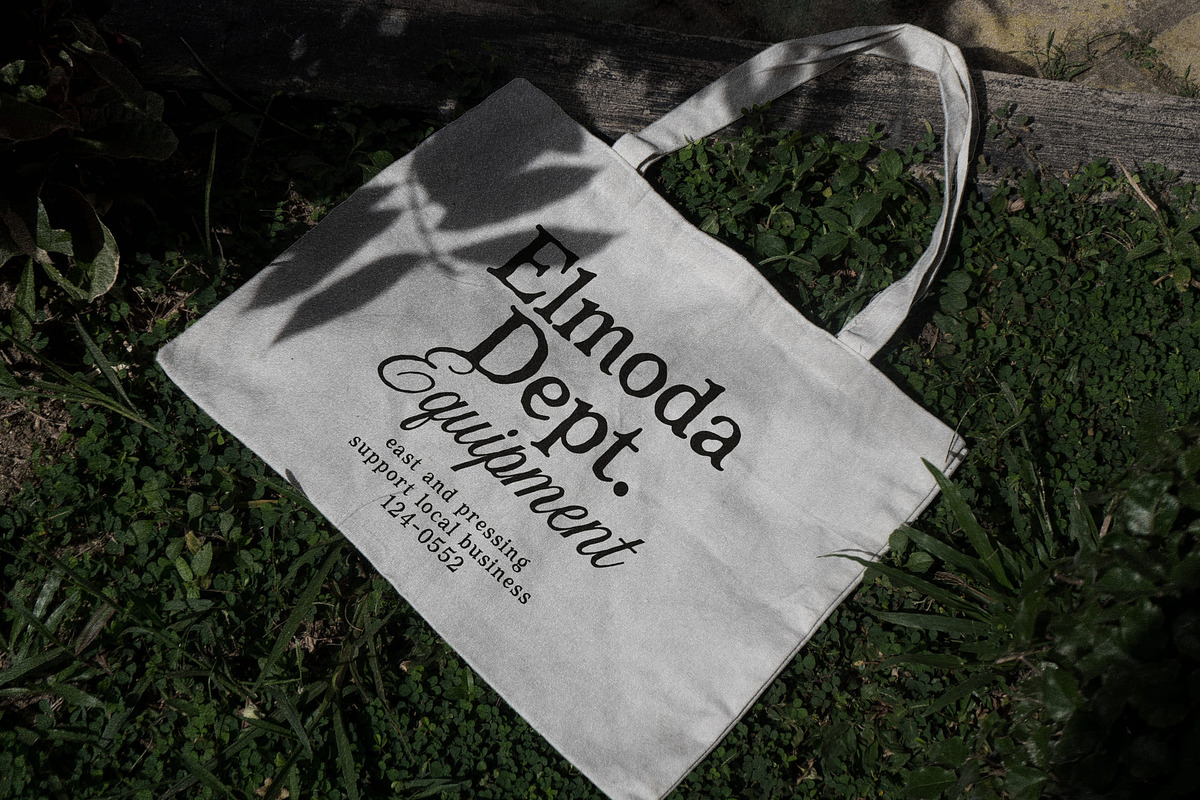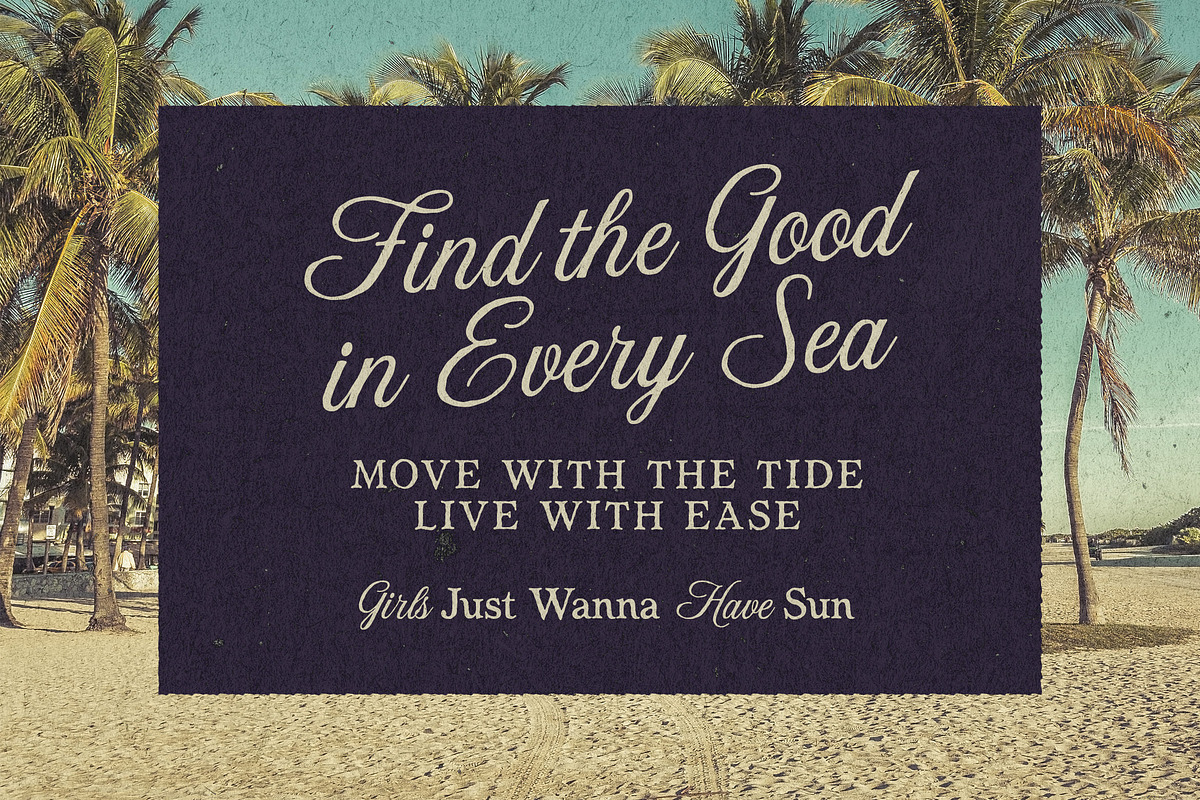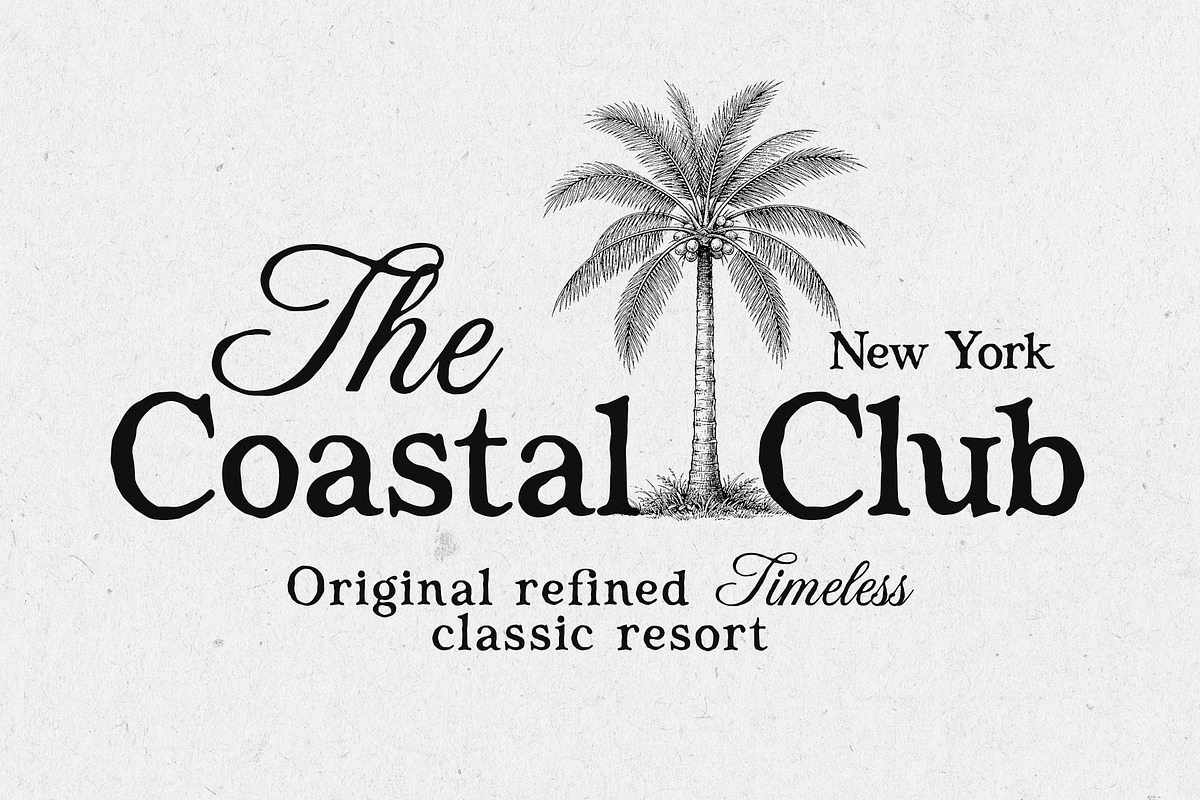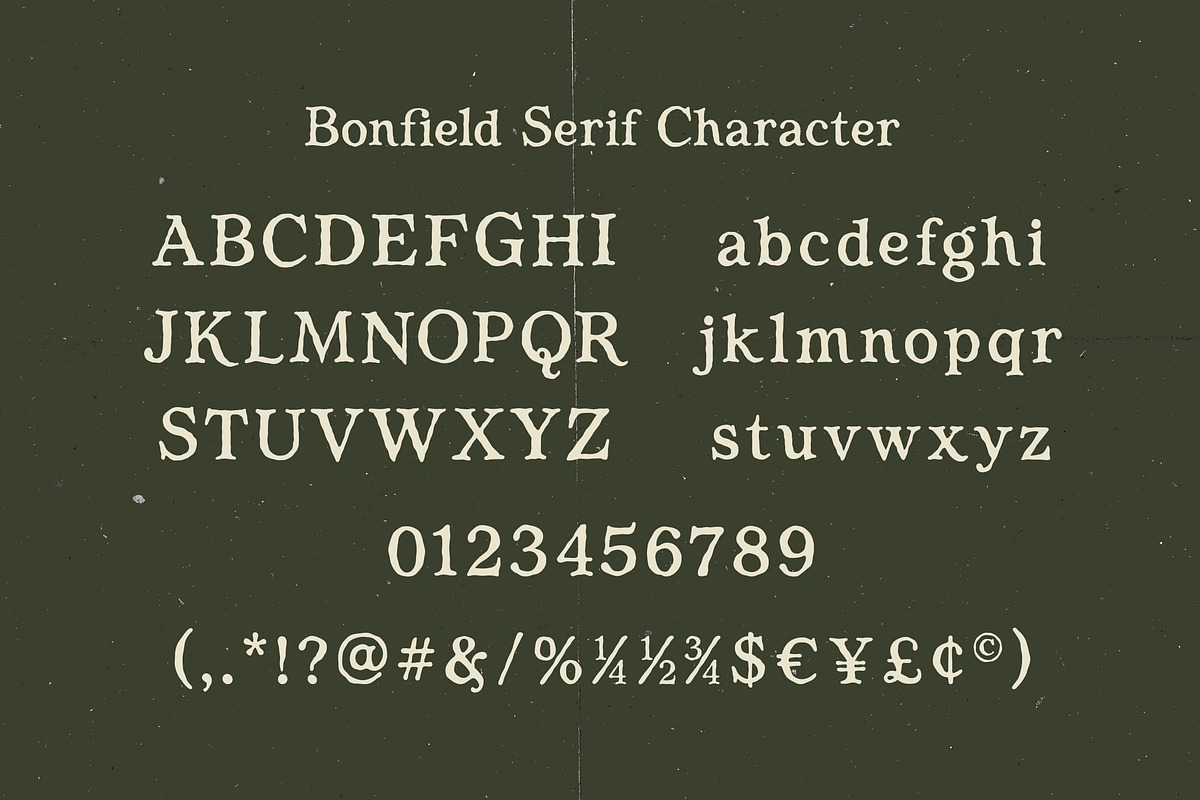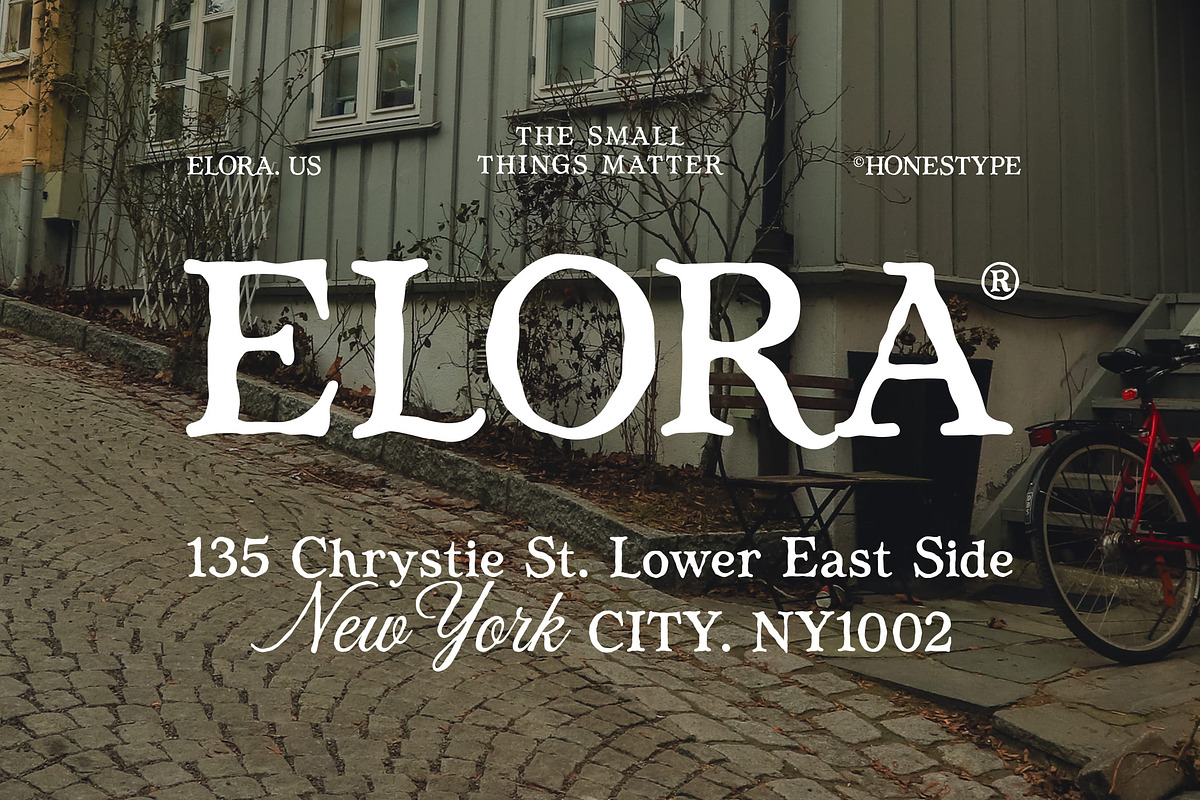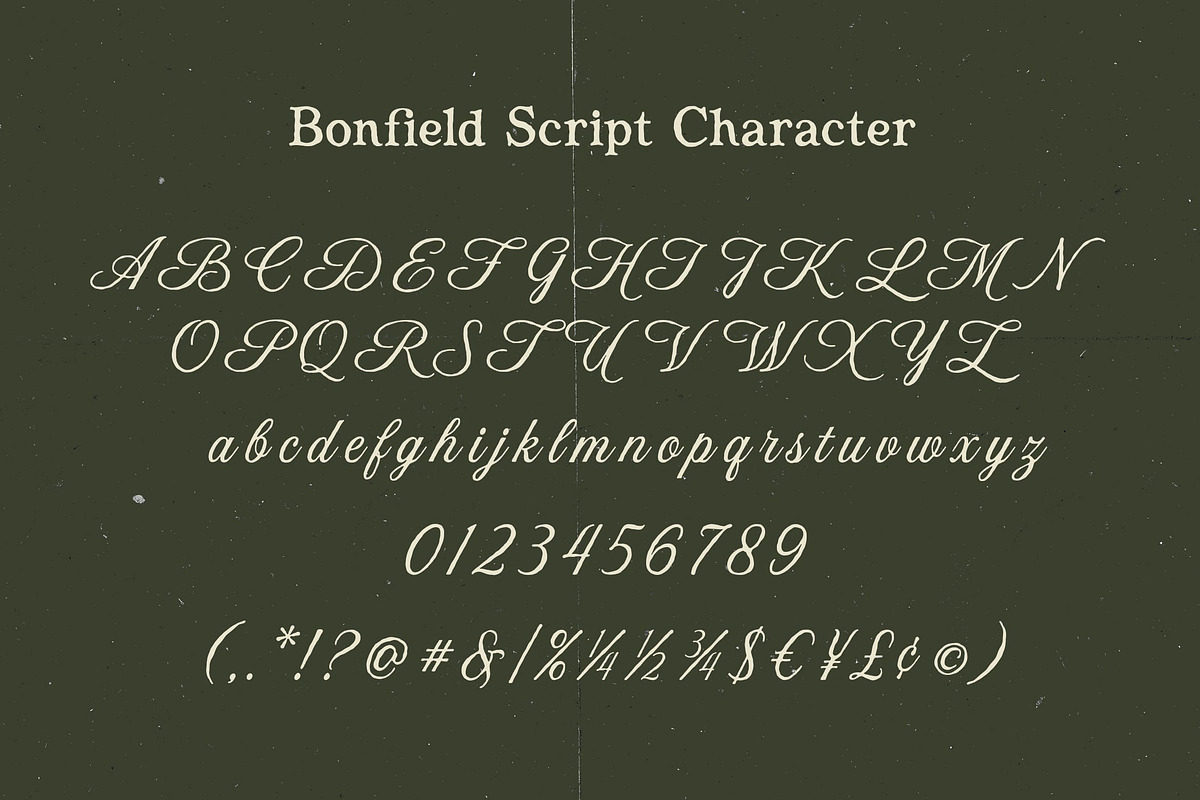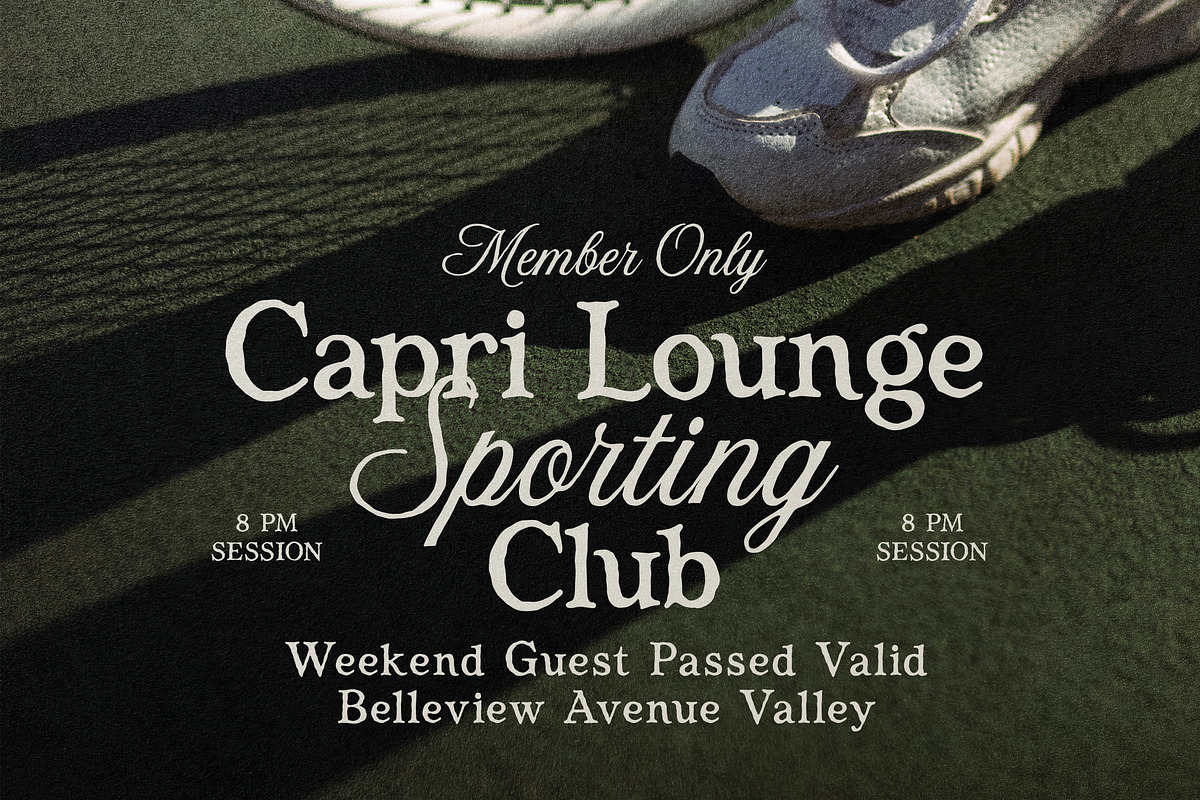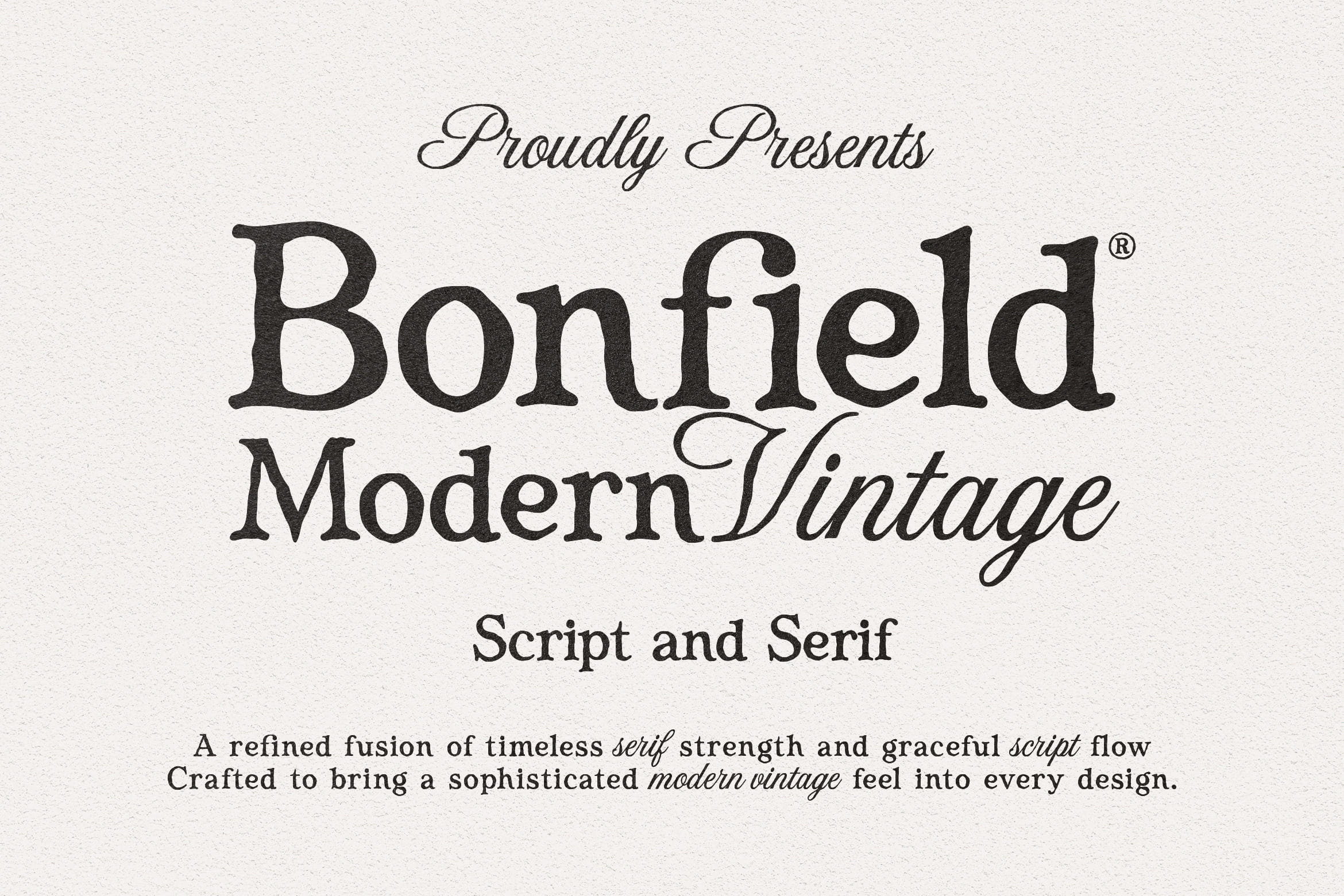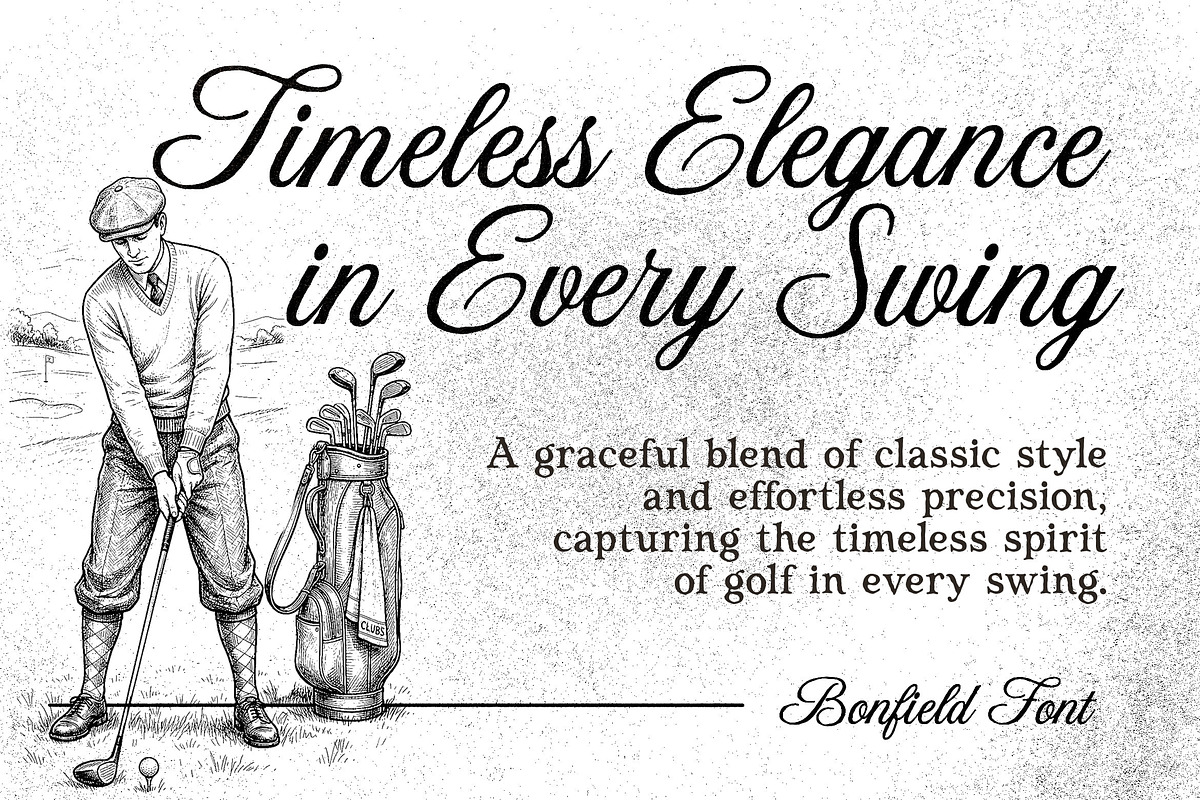
Bonfield – Modern Vintage Duo Font
Bonfield – Modern Vintage Script & Serif Font
Bonfield is a refined fusion of classic serif structure and expressive script flow, designed to bring a timeless yet modern vintage aesthetic to your creative projects. This unique typeface combines the strength and readability of serif with the organic, handcrafted feel of script, resulting in a beautifully balanced and highly versatile font.
Featuring slightly rough, natural edges that mimic authentic hand lettering, Bonfield delivers a warm, imperfect charm that adds character and depth to any design. Its textured strokes create a realistic handwritten impression while maintaining clarity and elegance, making it perfect for both display and branding purposes.
Whether you're working on logos, packaging, editorial layouts, posters, or lifestyle branding, Bonfield effortlessly enhances your design with a sophisticated vintage touch. The harmonious blend of structured and free-flowing elements allows you to create visually rich compositions with ease.
- Modern vintage style with timeless appeal
- Combination of serif and script in one cohesive typeface
- Natural rough texture for authentic handmade look
- Elegant yet expressive letterforms
- Ideal for branding, logos, packaging, quotes, and editorial design
Bring a sense of heritage, artistry, and modern elegance into your work with Bonfield a font that captures the beauty of imperfection and the power of classic typography.